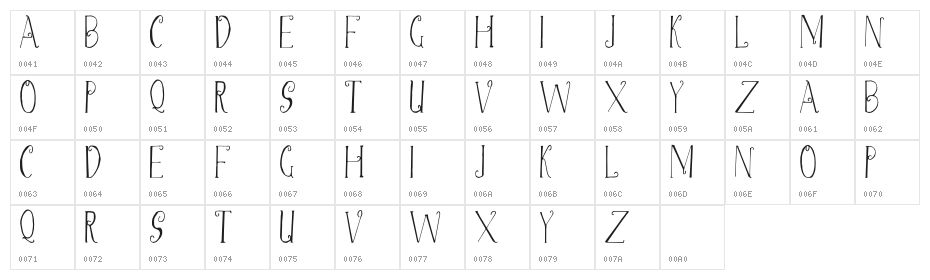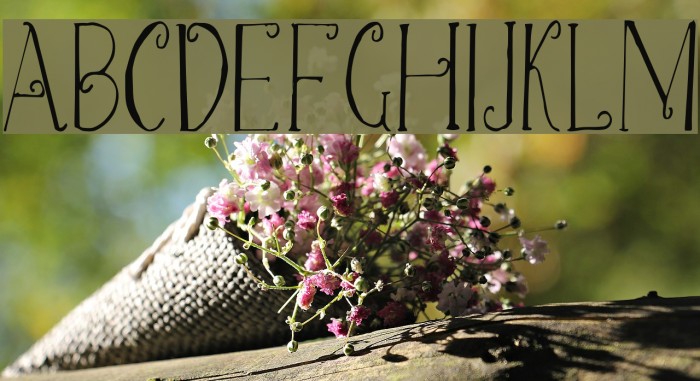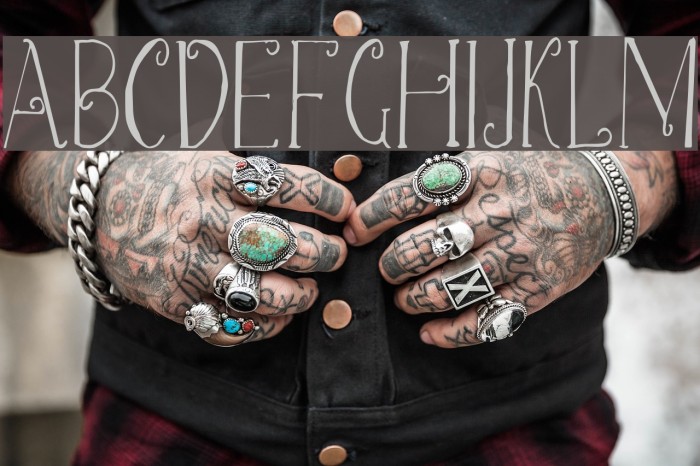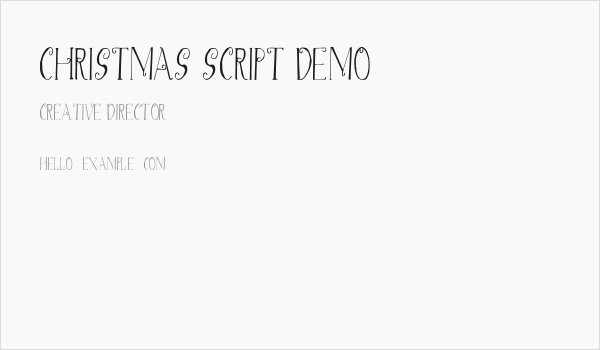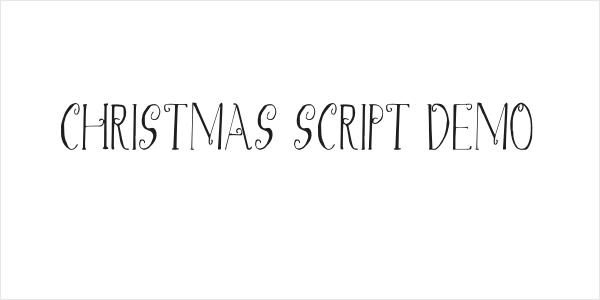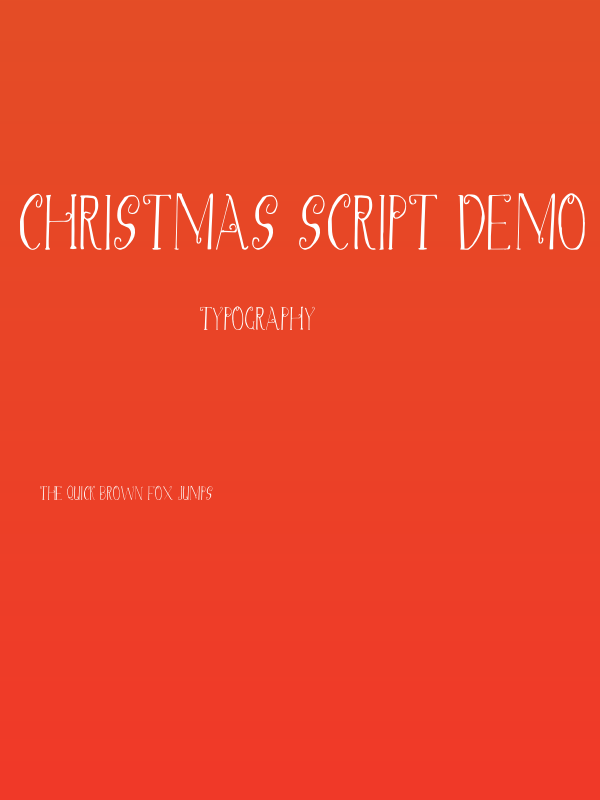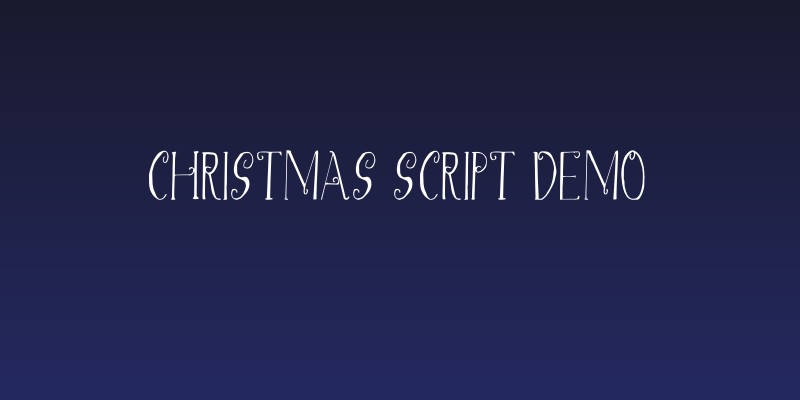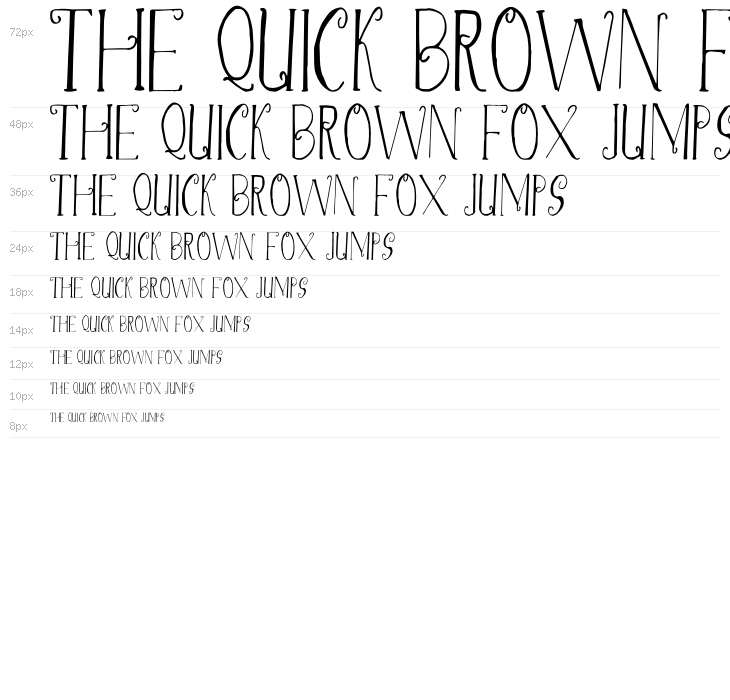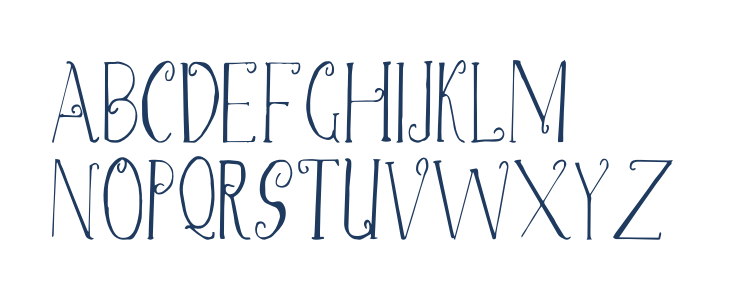
Christmas Script Demo Font
Christmas Script Demo Description
This whimsical and festive font exudes a playful charm, perfect for holiday-themed projects. The letters are characterized by their tall, slender forms with delicate curls and swirls that add a touch of elegance and fun. The uppercase letters are particularly ornate, with some featuring unique embellishments that resemble festive decorations. The overall design is reminiscent of handwritten calligraphy, yet maintains a structured and consistent appearance. This font captures the essence of holiday cheer, making it ideal for creating eye-catching designs that evoke a sense of joy and celebration.
| Use Case | Headlines, Logos, Decorative text |
| Proposed Projects | Ideal for holiday cards, festive invitations, seasonal branding, and decorative signage. |